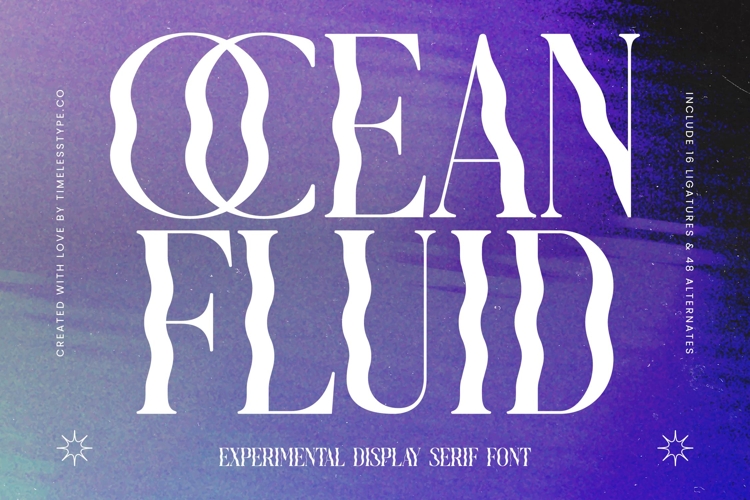
Ocean Fluid - Experimental Display Serif
The Ocean Fluid Typeface is an experimental display serif font with a unique, artistic design and strong contemporary character. Featuring 16 ligatures and 48 stylistic alternates, this font offers creative freedom to craft typography that feels unconventional, expressive, and full of visual variety. Its tall, slender letterforms with wave-inspired details draw from the fluid movement and dynamic energy of the ocean, making it an ideal choice for bold, out-of-the-box modern design projects.
This typeface works beautifully in editorial design, especially for art magazines, experimental zines, and creative book covers. The combination of ligatures and alternates creates expressive letterforms that bring layouts to life.
In branding and packaging, Ocean Fluid is perfect for creative products, avant-garde fashion, exclusive beverages, edgy cosmetics, and modern art projects. Its experimental aesthetic establishes a strong, iconic, and unforgettable visual identity.
For entertainment and promotional design, this font shines on concert posters, alternative music albums, art festivals, and contemporary visual campaigns. Its wavy, artistic letterforms deliver a striking theatrical presence.
In the field of digital design, Ocean Fluid stands out across social media content, creative websites, digital ads, and motion graphics, where its uniqueness provides a fresh and artistic visual impact. With multilingual support, it adapts seamlessly to global-scale projects.
In short, Ocean Fluid Typeface is an experimental serif display font designed to embody boldness, originality, and artistic energy. Perfect for editorial, branding, packaging, entertainment, advertising, and digital campaigns, this font transforms typography into a unique, expressive, and character-rich visual element.